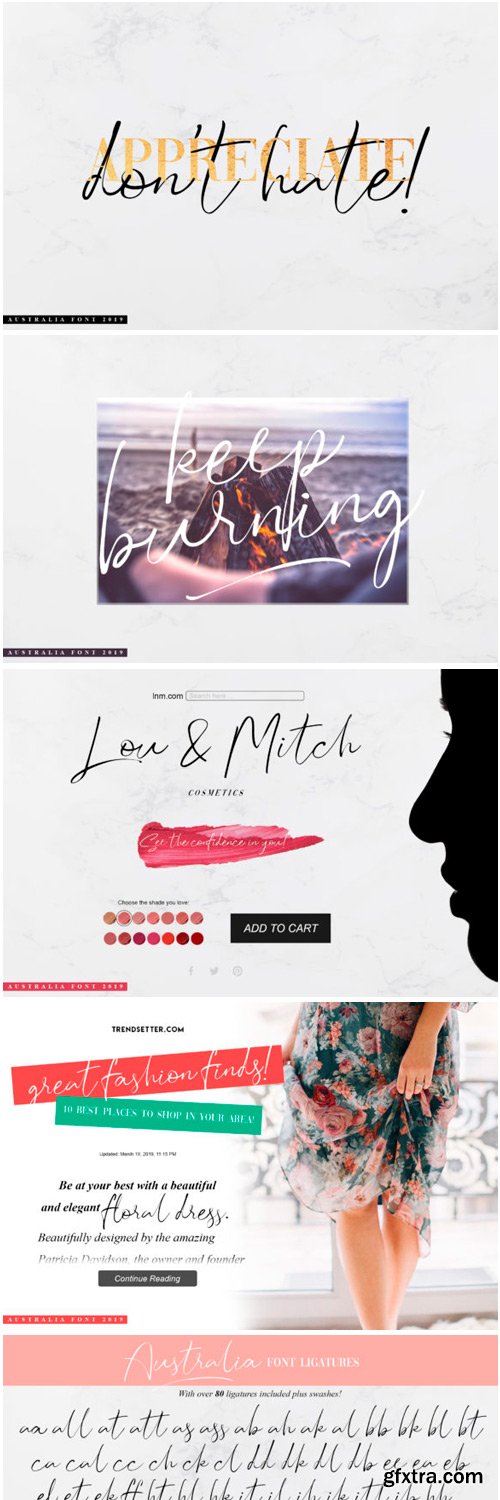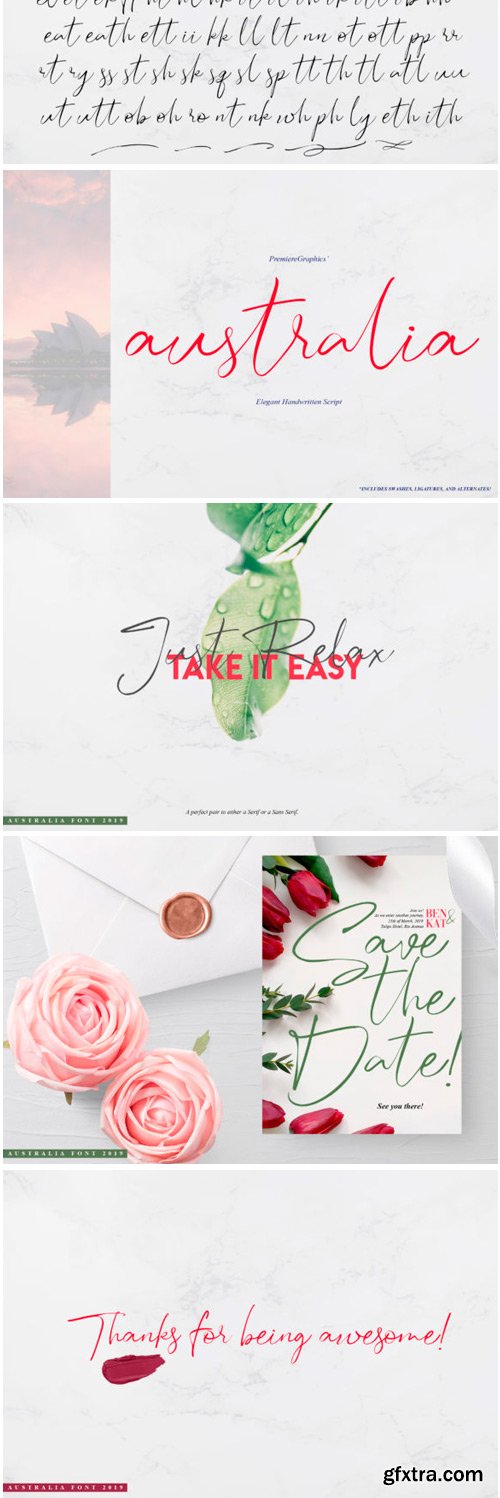
Australia Script Font
The Australia is carefully handwritten to be as realistic as your handwriting with a fountain pen. Its thick-to-thin strokes make your design as classy and elegant as it could ever be.